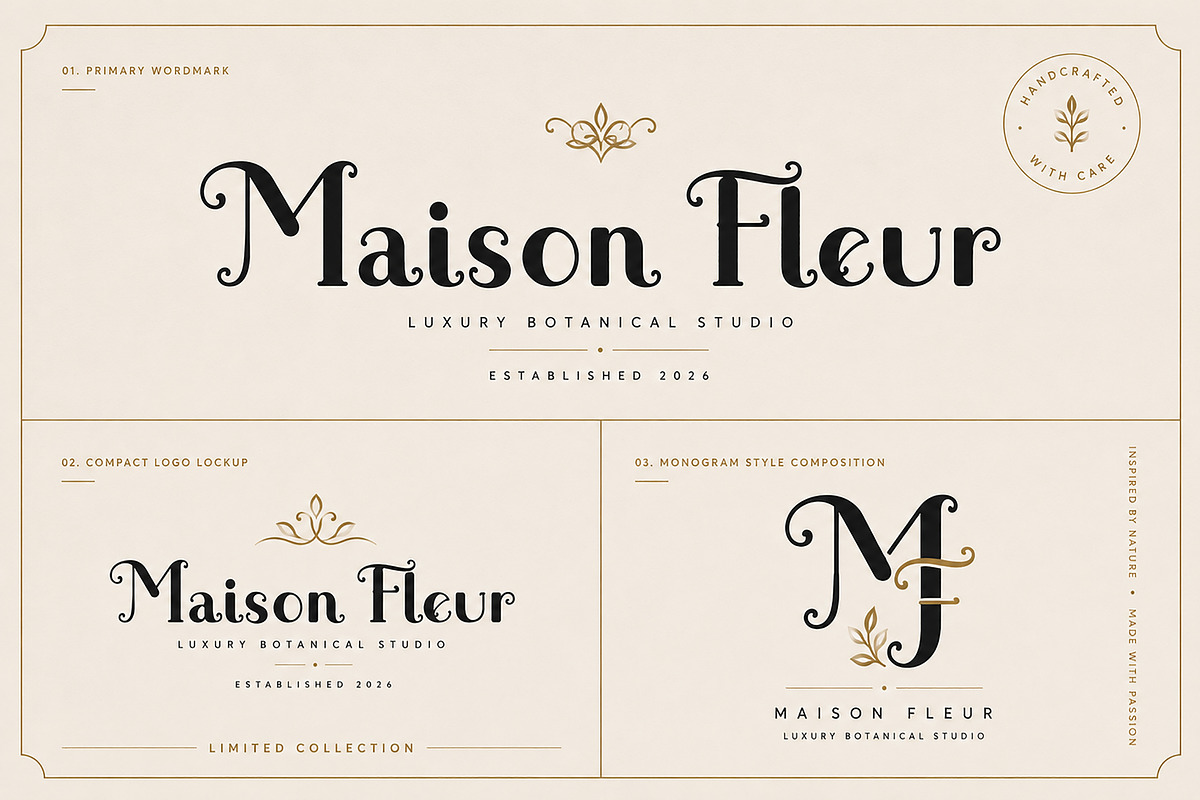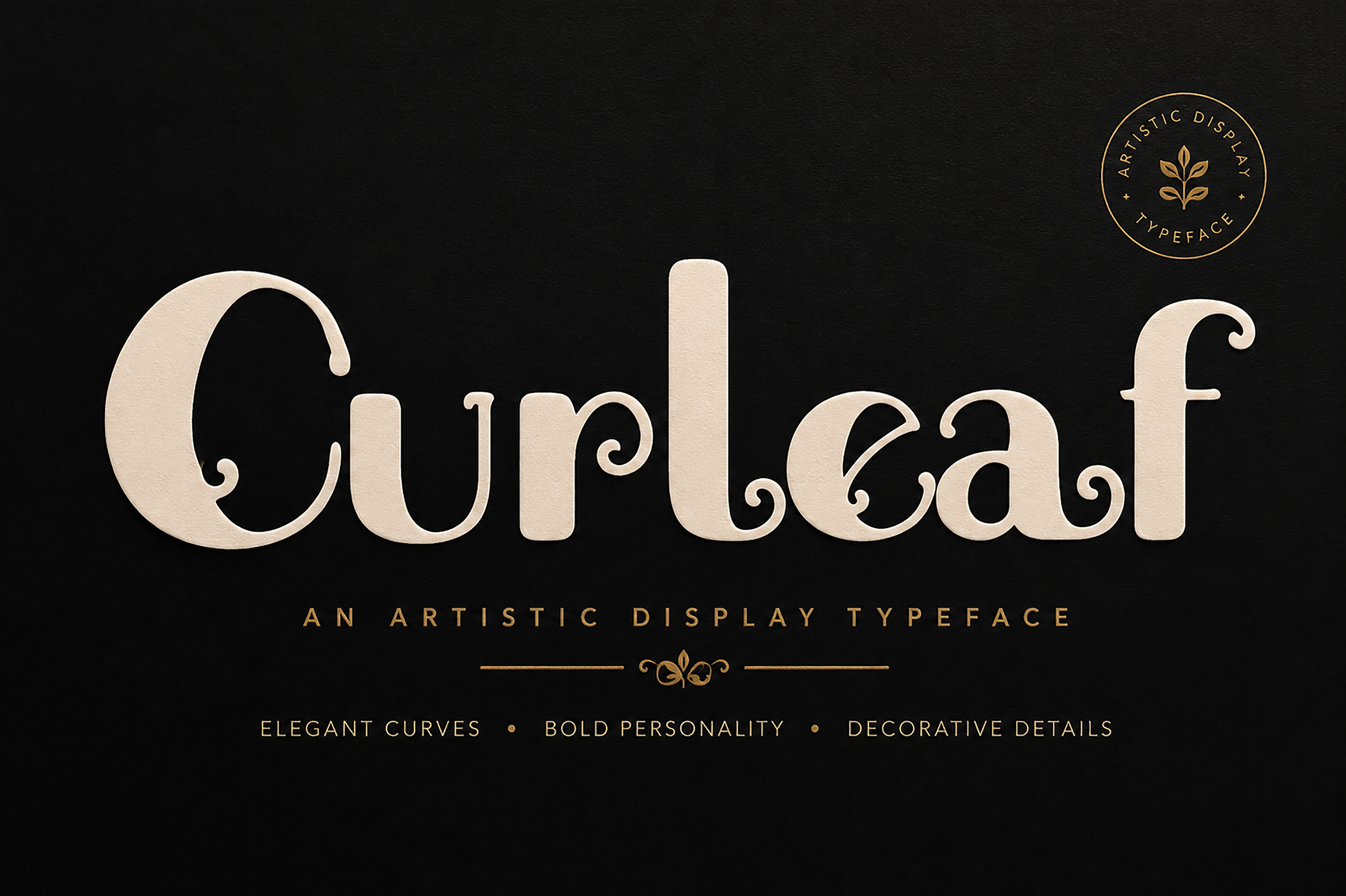
Curleaf – Artistic Display Typeface
Curleaf is an elegant display typeface that blends bold letterforms with graceful decorative curls, creating a timeless and sophisticated visual identity. Designed to stand out, Curleaf brings a refined artistic touch to branding, editorial layouts, luxury packaging, invitations, beauty products, and premium marketing materials.
Each letter is carefully crafted with distinctive curved terminals and smooth flowing details, making every headline feel unique, expressive, and memorable. Whether you're designing a boutique logo, a perfume label, a fashion campaign, or an editorial cover, Curleaf adds instant character and elegance to your work.
Its decorative yet highly readable style makes it ideal for projects that demand a luxurious, creative, and handcrafted appearance.
Luxury Branding
Boutique Logos
Fashion Editorials
Beauty & Cosmetics
Perfume Packaging
Candle Labels
Artisan Product Packaging
Wedding Invitations
Book & Magazine Covers
Posters & Headlines
Product Labels
Premium Advertising
Creative Marketing
High-End Print Design
Elegant Decorative Display Typeface
Unique Curved Letterforms
Bold & Eye-Catching Headlines
Clean, Premium Design